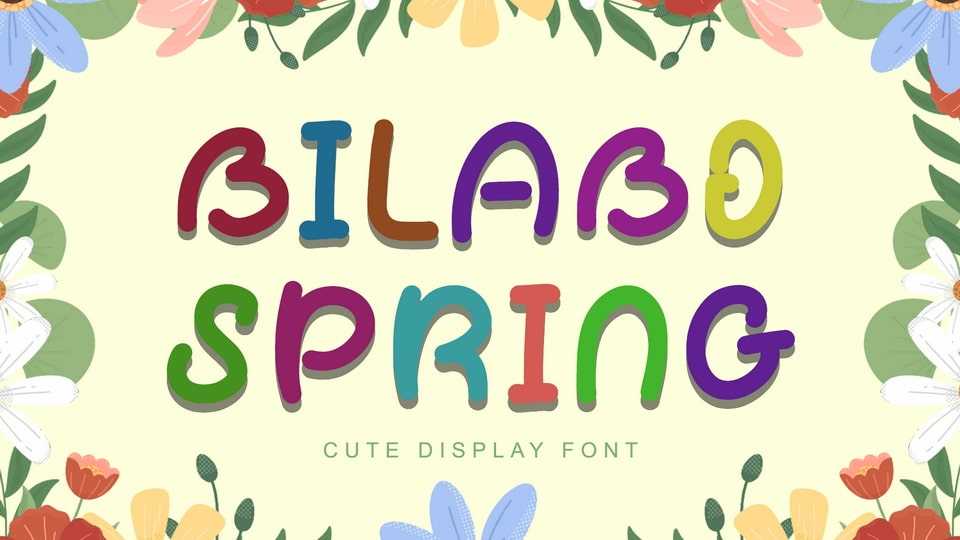
Download Bilabo Spring font, a unique and cute handwritten typeface. This font is equipped with uppercase, lowercase, numerals, punctuations and multilingual support.